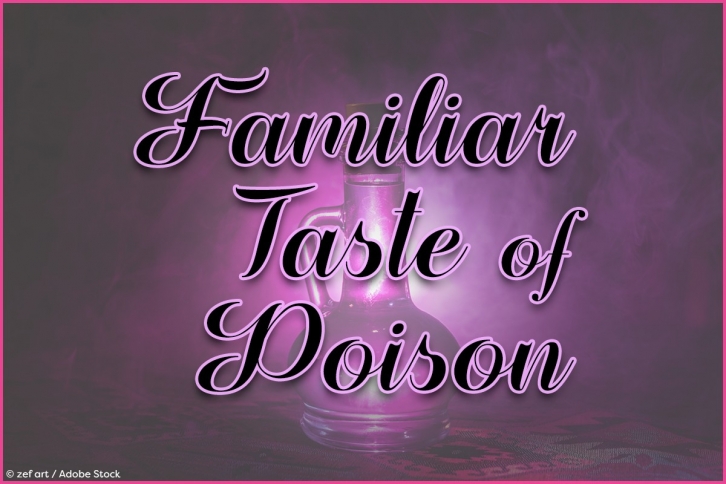
Familiar Taste of Poison is a beautiful font that was designed by Misti Fonts. It's a great choice for designers and creatives who need such a font. It was released on November 16, 2019 and the file size is 21.95 MB. Familiar Taste of Poison may give a more youthful, expressive and casual look to your project. It is a very beautiful, refined, elegant, and high-quality font.